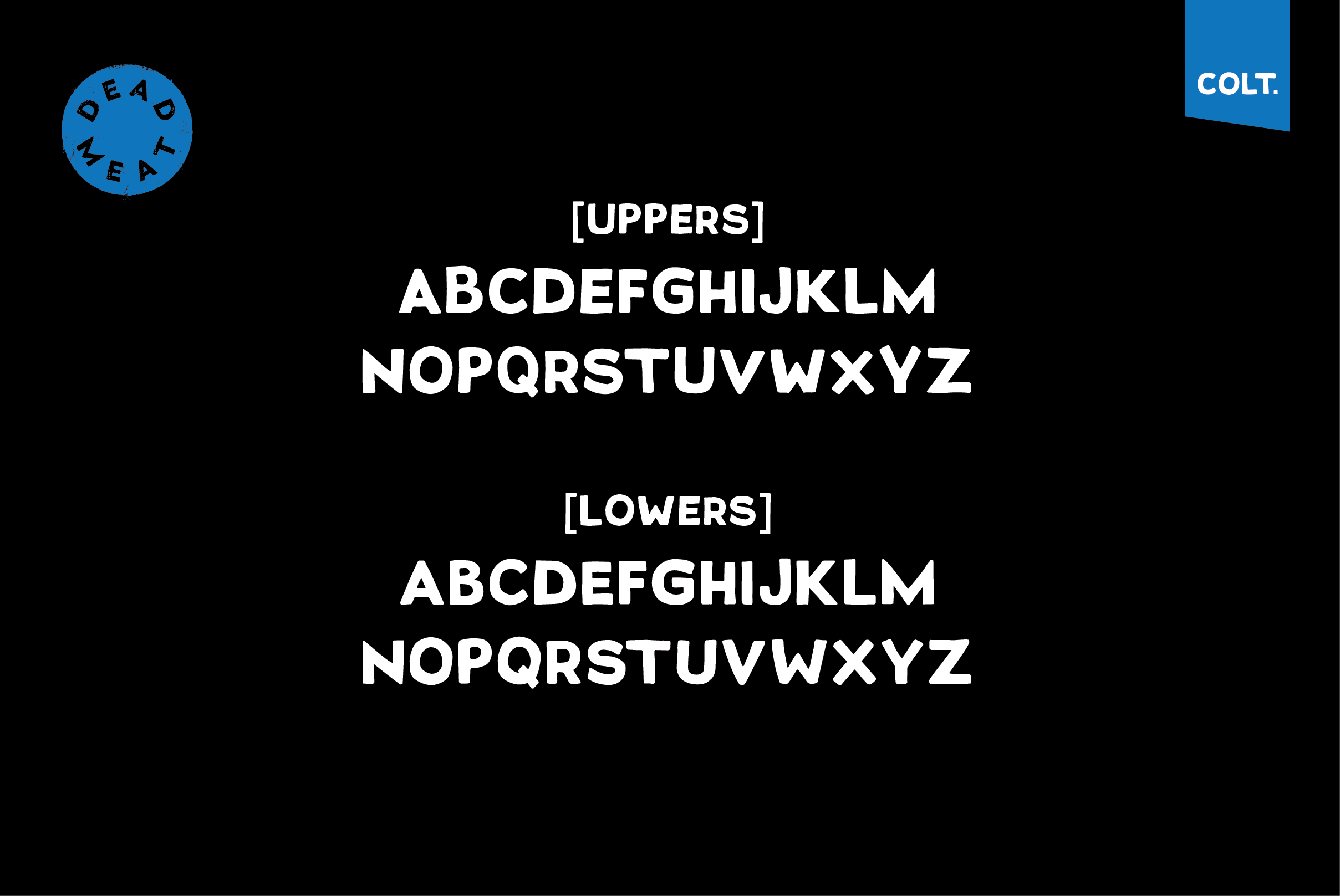
DEAD MEAT - T-shirt Design Font
Introducing DEAD MEAT - a bold, uppercase display font by We are colt
Dead Meat will give your titles and logo types a bold hand made lettering look.
This pack includes all uppercase letters and numerals. Each glyph is unique from hand drawn original. – Webfont format is included.
A great bold, un-uniform font for t-shirt designs.
- uppercase letters (use lower case key strokes for alternative character)